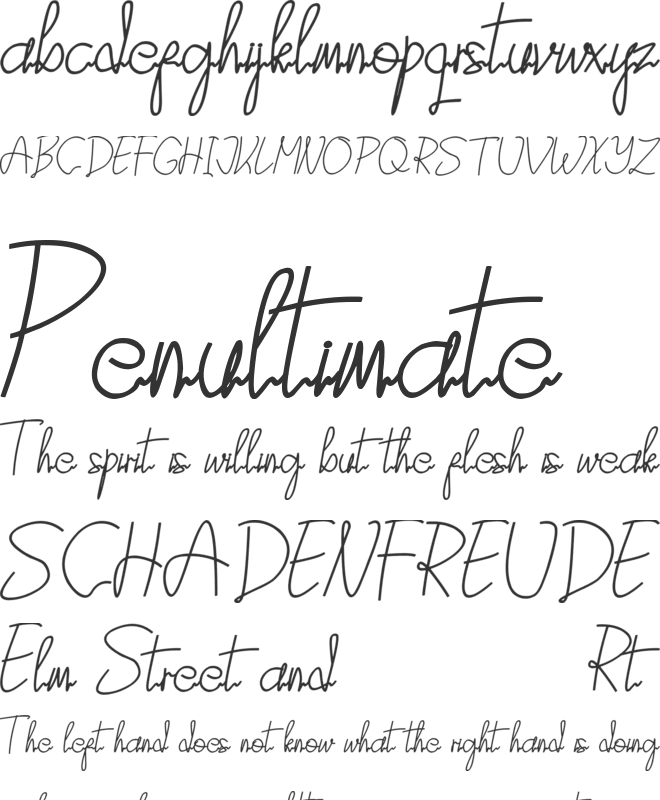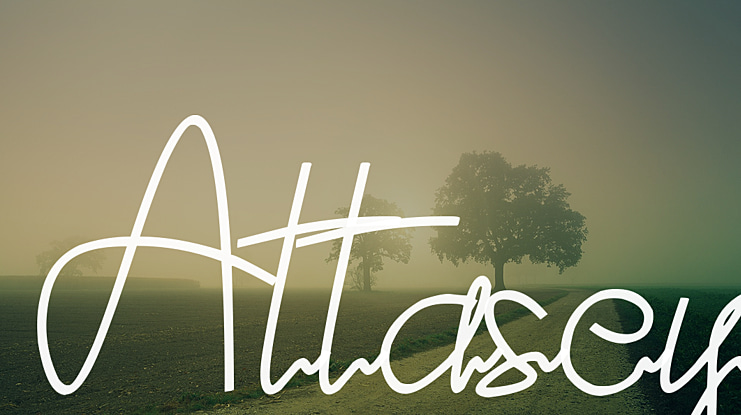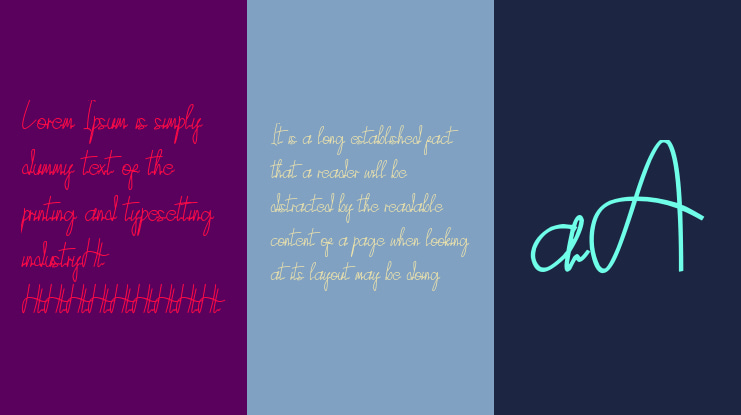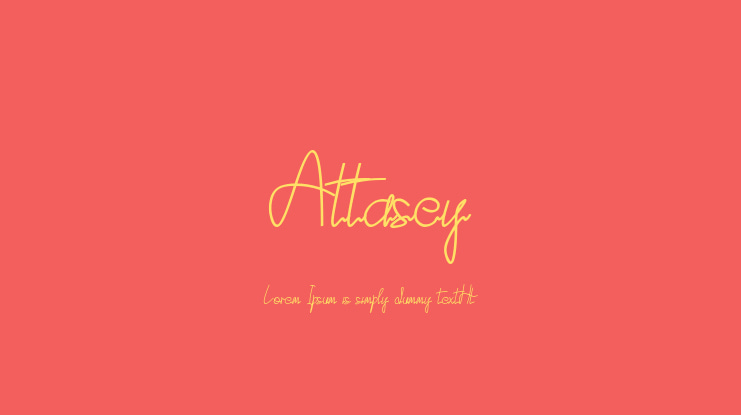
Attasey Font
Attasey is modern feminine font, every single letters have been carefully crafted to make your text looks beautiful. With modern script style this font will perfect for many different project ex: photography, watermark, quotes, blog header, poster, wedding, branding, logo, fashion, apparel, letter, invitation, stationery, etc.